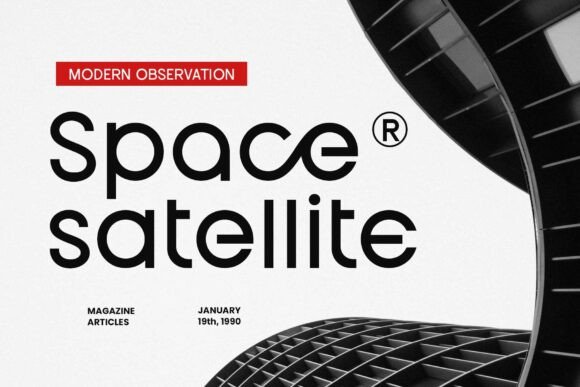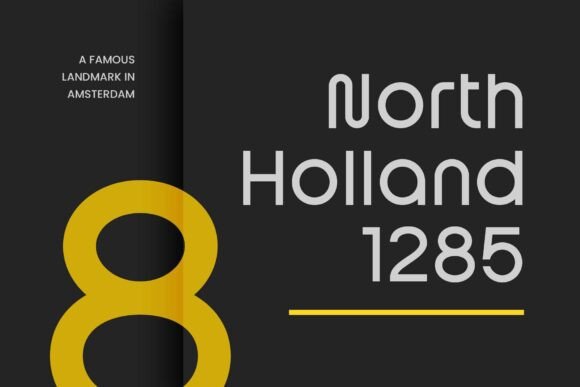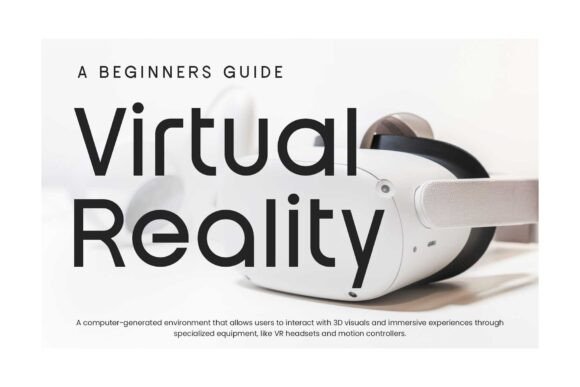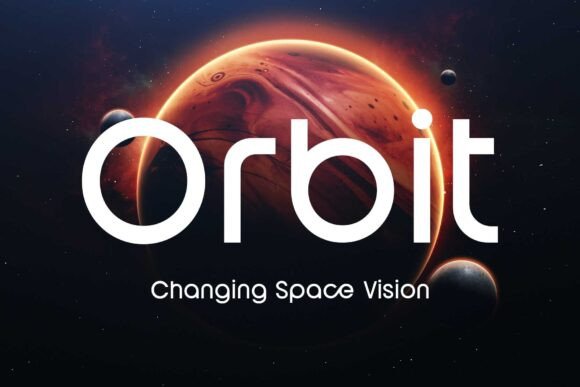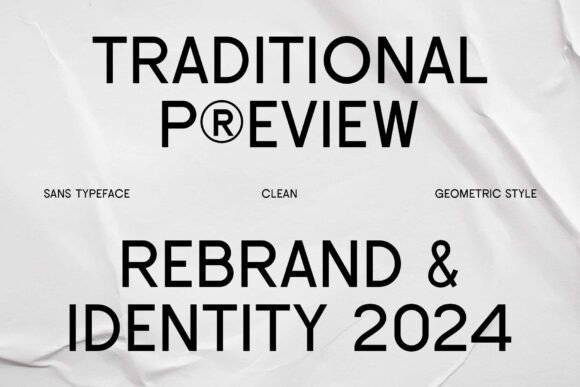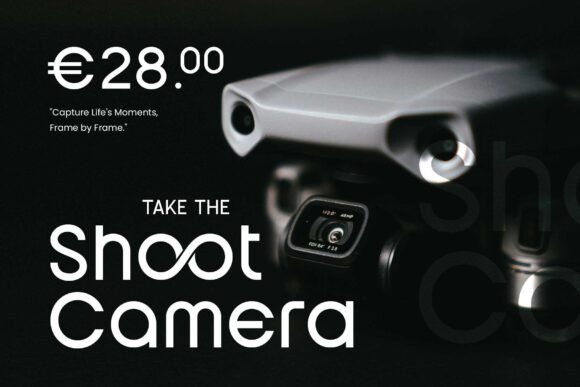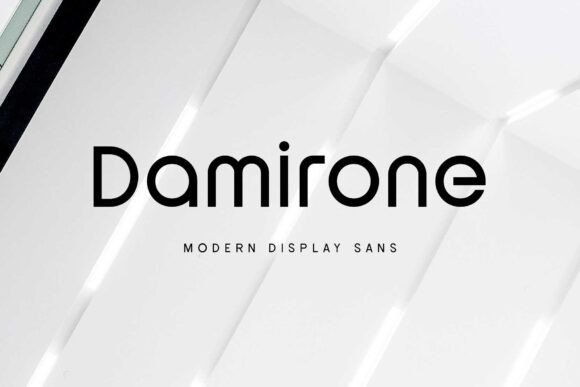
Introducing Damirone Font: Elevate Your Designs with Elegance and Sophistication
In the world of typography, fonts play a crucial role in conveying the message and aesthetic of a design. For designers and crafters seeking a font that embodies elegance, sophistication, and a touch of futurism, Damirone Font is an exceptional choice. This elegant display sans font is specifically designed to complement minimalist themes, offering a unique blend of geometric curves and light strokes that result in a clean and standout look.
Damirone Font: A Perfect Blend of Futurism and Minimalism
Damirone Font boasts a futuristic style that is perfectly suited for designs that require a sleek and modern touch. Its unique letterforms are crafted to provide a distinctive look that can elevate a wide range of design projects, from logos and posters to quotes and headlines. The font’s minimalist approach ensures that it remains versatile, allowing it to be used in various contexts without overpowering the content.
Key Features of Damirone Font
Damirone Font comes with a range of features that make it an excellent choice for designers and crafters. Some of its key features include:
• Special Characters: The font includes a set of special characters that can add a unique touch to your designs.
• Multilingual Support: With multilingual support, Damirone Font can be used to create designs for a global audience.
• Versatile Ligatures: The font offers versatile ligatures, allowing you to mix and match different letterforms to create visually appealing combinations.
Applications of Damirone Font
Damirone Font’s versatility makes it suitable for a wide range of applications, including:
• Logos: Create stunning logos that stand out with Damirone Font’s unique letterforms.
• Posters: Use the font to create eye-catching posters that grab attention.
• Quotes: Add a touch of elegance to your quotes with Damirone Font’s clean and sophisticated look.
• Headlines: Elevate your headlines with a font that is designed to make a statement.
Why Choose Damirone Font?
With so many fonts available, why choose Damirone Font? Here are a few reasons:
• Elegance: Damirone Font offers an elegant look that can elevate any design.
• Versatility: The font’s versatility makes it suitable for a wide range of applications.
• Uniqueness: Damirone Font’s unique letterforms ensure that your designs stand out from the crowd.
Damirone Font is an exceptional choice for designers and crafters seeking a font that embodies elegance, sophistication, and a touch of futurism. Its unique blend of geometric curves and light strokes makes it perfect for minimalist themes, while its special characters, multilingual support, and versatile ligatures provide endless possibilities for creative expression. Whether you’re creating logos, posters, quotes, or headlines, Damirone Font is sure to elevate your designs and make them stand out.